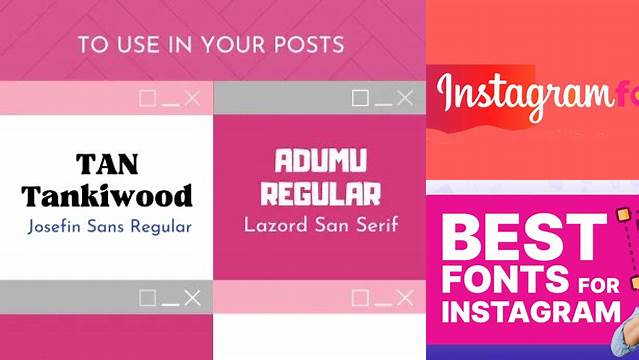
Bold Fonts For Instagram: Make Your Posts Pop!
Want to make your Instagram posts stand out from the crowd? One of the easiest ways to do that is by using bold fonts! I mean, let's be real, who doesn't love a good bold font to grab attention? In this article, we're diving deep into the world of bold fonts for Instagram posts. We'll cover everything from why they're important to how to use them effectively, and even share some handy tips and tricks to make your Insta game strong. So, buckle up, guys, and letâs get those posts looking extra fabulous!
Why Use Bold Fonts on Instagram?
Grabbing Attention with Bold Text
Bold fonts are like the VIPs of the font world â they demand attention! In the fast-scrolling world of Instagram, your posts have just a few seconds to make an impression. Using bold text is a surefire way to highlight key information and make your captions pop. Imagine your followers scrolling through their feeds; a standard font might just blend in, but a bold font? That's going to catch their eye and make them stop and read. Think of it as shouting (in a stylish way, of course!) without actually shouting. You're emphasizing what's important, like a call-to-action, a special offer, or just the main point of your message. Plus, itâs a simple way to add a bit of visual flair to your profile, making it look more professional and engaging. Using bold strategically can significantly boost your engagement, drawing more likes, comments, and followers. So, if youâre not already using bold fonts, now is the time to jump on the bandwagon and see the difference it makes! Itâs a small change with a big impact, trust me!
Emphasizing Key Information Using Bold Fonts
Okay, guys, let's talk about emphasis. You've got a killer caption, but how do you make sure the most important parts don't get lost in the sea of words? Enter bold fonts! Using bold text is like putting a spotlight on the crucial bits of your message. Think about it: if youâre announcing a sale, youâd want the discount percentage and the dates to really stand out, right? Bold fonts do just that. They draw the eye to what matters most, whether it's a call to action (âShop Now!â), a special announcement, or a key takeaway from your post. It's not just about making things look pretty (though it does help!); it's about making your message clear and impactful. By using bold fonts to highlight essential details, you're guiding your followers' attention and making it easier for them to grasp your message. This leads to better engagement, because letâs face it, people are more likely to interact with content that's easy to digest. So, when youâre crafting your next Instagram caption, ask yourself: Whatâs the most important thing I want people to notice? And then, bold it up!
Improving Readability with Bold Fonts on Instagram
Alright, letâs get real â nobody wants to read a giant wall of text, especially on Instagram! That's where bold fonts come to the rescue, making your captions way more readable and engaging. Think of bold text as a visual guide, breaking up the monotony and helping your followers navigate your message more easily. By strategically using bold fonts, you can highlight key phrases, create subheadings, and generally make your captions easier on the eyes. This is super important because people are more likely to read and engage with content thatâs clear and concise. Imagine scrolling through your feed and seeing a long paragraph versus a caption with bolded keywords and phrases â which one are you more likely to read? Exactly! Bold fonts not only add emphasis but also create a visual hierarchy, making your content more accessible and enjoyable. So, if you want your followers to actually read what youâve written (and not just scroll past), using bold fonts is a total game-changer. Itâs all about making your message clear, engaging, and oh-so-readable!
How to Use Bold Fonts on Instagram
Using Online Font Generators for Bold Instagram Text
Okay, guys, letâs talk tech! One of the easiest ways to get bold fonts on your Instagram posts is by using online font generators. These little tools are lifesavers when you want to add some flair to your captions without any hassle. Basically, you just type your text into the generator, and bam, it spits out a bunch of different font options, including bold. You can then copy and paste that text directly into your Instagram caption. Itâs super simple and doesnât require any fancy apps or technical skills. There are tons of these generators out there, so you can find one that suits your style. Plus, they often offer a variety of other cool fonts too, like italics, cursive, and even some funky decorative styles. Using a font generator is a great way to make your posts stand out, add some personality, and keep your captions looking fresh. So, if you havenât tried one yet, give it a go â you might just find your new favorite Instagram hack! It's quick, easy, and makes a world of difference in how your posts look and feel. Trust me, your followers will notice the extra effort!
Copying and Pasting Bold Fonts into Instagram Captions
Alright, letâs break it down step-by-step: how do you actually get those awesome bold fonts from the generator into your Instagram captions? Itâs as easy as copy and paste, guys! First, you type your text into your chosen font generator. Once you see the bold version you like, simply copy it (usually thereâs a handy âcopyâ button right there). Then, head over to Instagram, either when youâre creating a new post or editing an existing caption. Tap in the caption box, paste your bold text, and voila! Your caption is now rocking a bold font. This method is super versatile because you can bold just certain words or phrases, giving you full control over how your message looks. Want to highlight your call-to-action? Bold it! Want to emphasize a special offer? Bold it! Itâs all about strategic placement to grab attention and make your message pop. Plus, this copy-and-paste method works on other social media platforms too, so you can keep your branding consistent across the board. So go ahead, give it a try â itâs the easiest way to add some bold flair to your Instagram game!
Limitations of Using Bold Fonts on Instagram
Okay, letâs keep it real â using bold fonts on Instagram isnât all sunshine and rainbows. There are a few limitations you should know about. First off, you canât just bold text directly within the Instagram app itself. You need to use those handy font generators we talked about, which means an extra step in your posting process. Itâs not a huge deal, but itâs worth keeping in mind if youâre in a rush. Another thing is that while these fonts look bold, theyâre technically different characters than the standard font. This means that screen readers (which people with visual impairments use) might not recognize them as bold, which could affect accessibility. Also, not all font generators are created equal â some might not display correctly on all devices, so itâs always a good idea to double-check how your post looks on different screens. Finally, overusing bold fonts can actually have the opposite effect and make your captions look cluttered and hard to read. Itâs all about balance! So, while bold fonts are a fantastic way to add emphasis, itâs good to be aware of these limitations and use them strategically.
Best Font Generators for Bold Instagram Posts
LingoJam Font Generator
Alright, let's dive into one of the top contenders in the font generator world: LingoJam! This tool is a total lifesaver for anyone looking to spice up their Instagram posts with bold fonts (and more!). What makes LingoJam so great? Well, itâs super user-friendly, for starters. You just type your text into the box, and LingoJam instantly generates a bunch of different font styles, including various bold options. Itâs like magic, but with fonts! One of the coolest things about LingoJam is that it shows you the font variations in real-time as you type, so you can see exactly how your text will look. This makes it super easy to pick the perfect bold font for your caption. Plus, LingoJam isnât just about bold â it offers a ton of other funky fonts, like italics, cursive, and even some decorative styles, so you can really get creative with your posts. The best part? Itâs totally free to use, and you donât need to download any apps or software. Just head to the website, type away, and copy and paste your bold text into Instagram. LingoJam is a must-try if you want to make your Instagram captions pop and add a touch of personality to your feed. Seriously, guys, give it a whirl â you wonât be disappointed!
YayText Font Generator
Next up on our list of awesome font generators, we've got YayText! This tool is another fantastic option for creating bold fonts for your Instagram posts, and it comes with some cool features that make it stand out. Like LingoJam, YayText is super easy to use â just type in your text, and itâll generate a bunch of different font styles, including several bold variations. What sets YayText apart, though, is its preview feature. It actually shows you how your bold text will look on an Instagram post before you even copy it, which is super helpful for visualizing your caption. This means you can make sure your font looks perfect before you hit that post button! YayText also offers a variety of other font styles, so you can experiment and find the perfect match for your brandâs aesthetic. Plus, itâs free to use, and thereâs no need to download anything â just head to the website and get creative. If youâre looking for a font generator that gives you a little extra help with visualizing your captions, YayText is definitely worth checking out. Itâs a great way to add some bold flair to your Instagram game and make your posts look polished and professional.
So, guys, weâve covered a lot about bold fonts for Instagram, haven't we? From why they're essential for grabbing attention and emphasizing key information, to how to use them effectively and avoid common mistakes, weâve really dug deep into the world of bold text. Weâve explored the best font generators, creative ways to use bold fonts, branding considerations, accessibility issues, and even the future of bold fonts on social media. The main takeaway here is that bold fonts are a powerful tool for making your Instagram posts pop and connecting with your audience. When used strategically, they can help you create a strong visual identity, emphasize your message, and make your content more accessible. But remember, like any tool, bold fonts are most effective when used with intention and care. So, go forth, experiment with different bold font styles, and let your creativity shine! But keep in mind everything that we discussed in this article. Your Instagram captions are about to get a whole lot bolder!